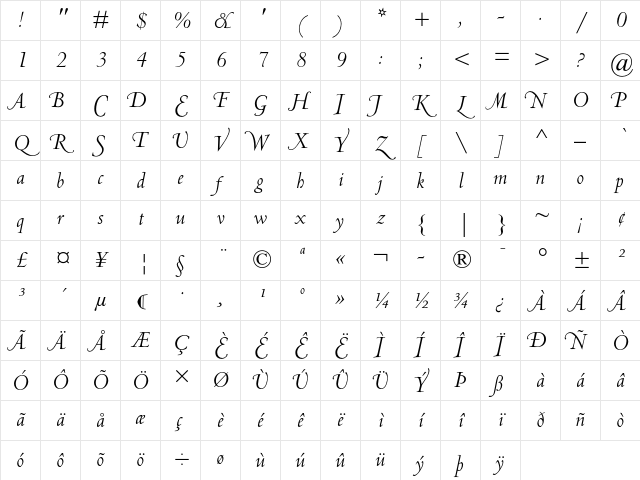
Complete Centaur MT Swash Capitals glyph index. Displaying only characters natively supported by Centaur MT Swash Capitals font.
Centaur MT flows with the natural rhythm of handwritten lettering, making it ideal for designs that call for warmth and personal expression.
Font Pairing: Combine Centaur MT with a simple geometric sans for maximum contrast - the tension between flowing curves and clean structure is a classic typographic pairing.
Pro Tip: Use Centaur MT for short runs of text - names, titles, or taglines. Extended body copy in script faces tires the eye quickly.